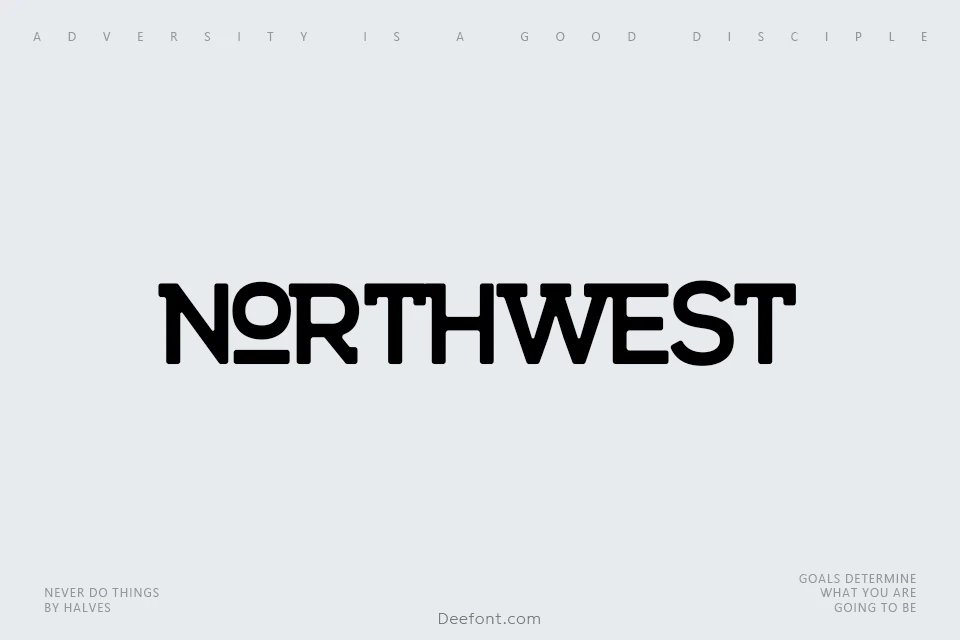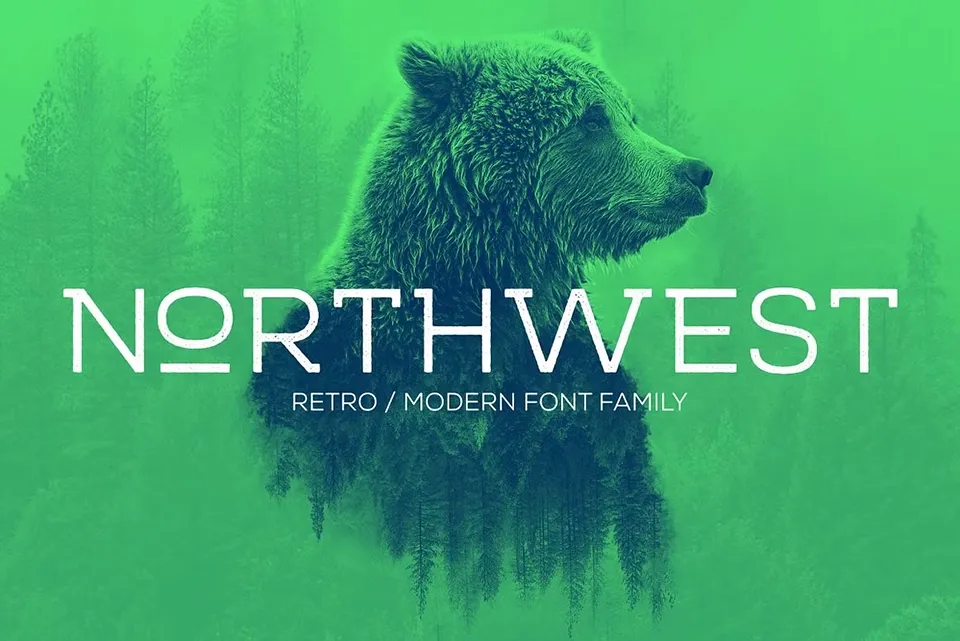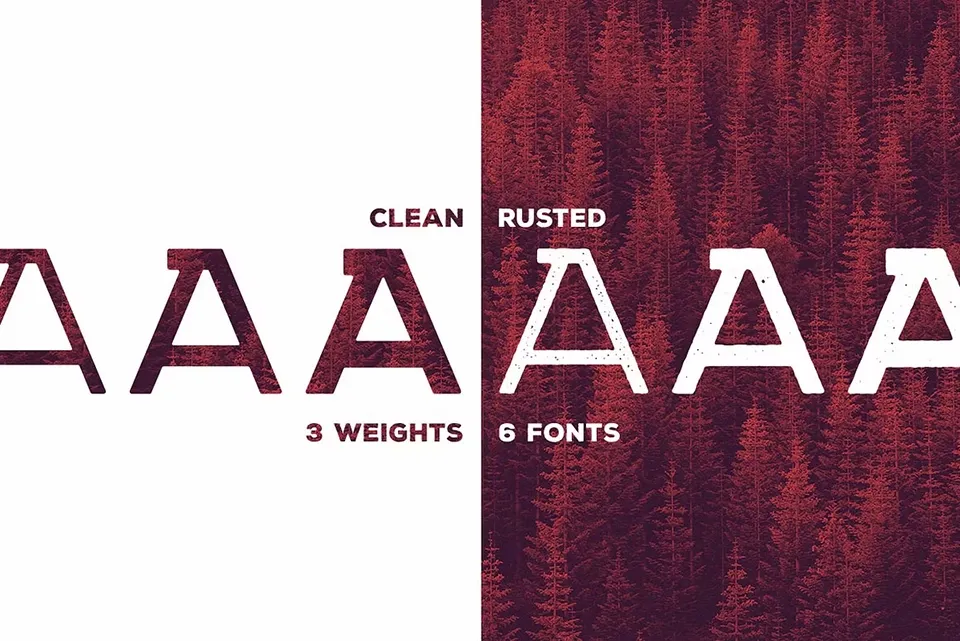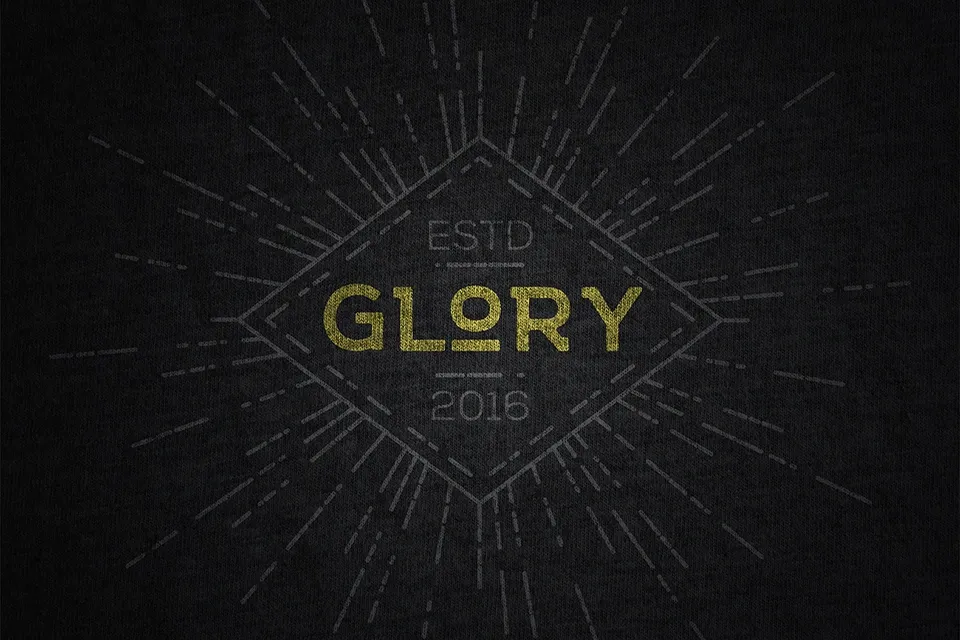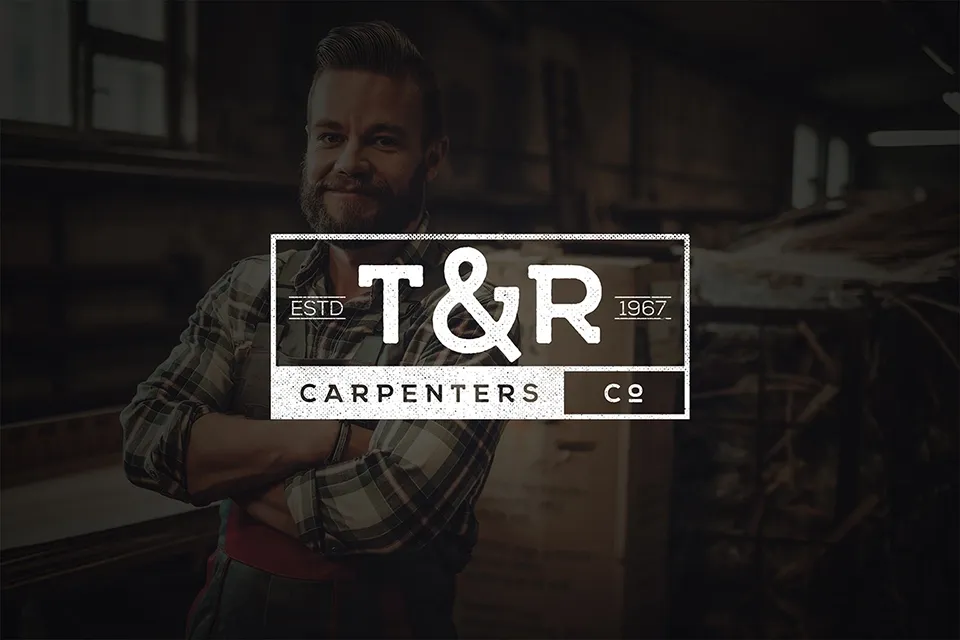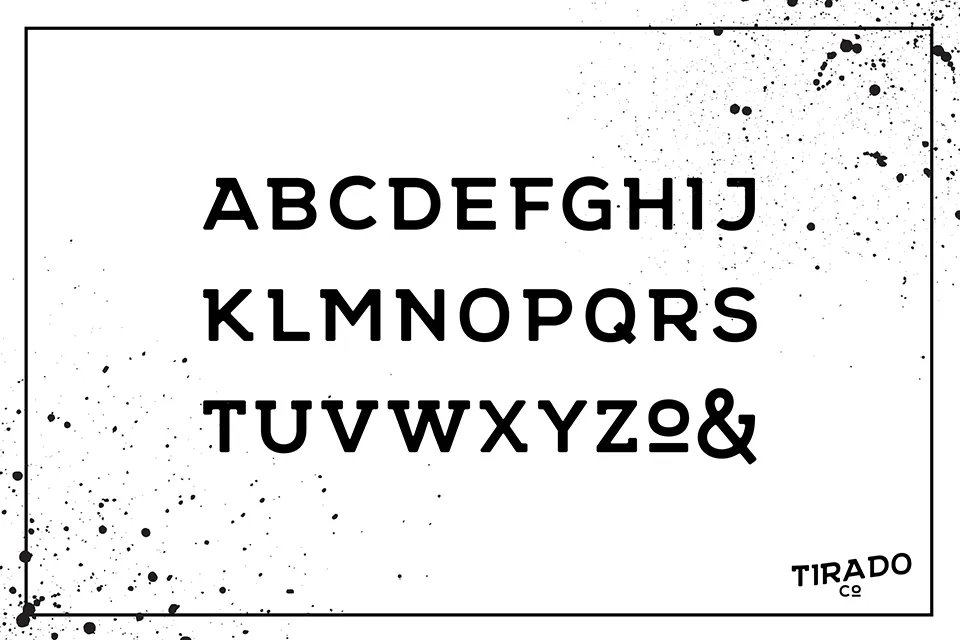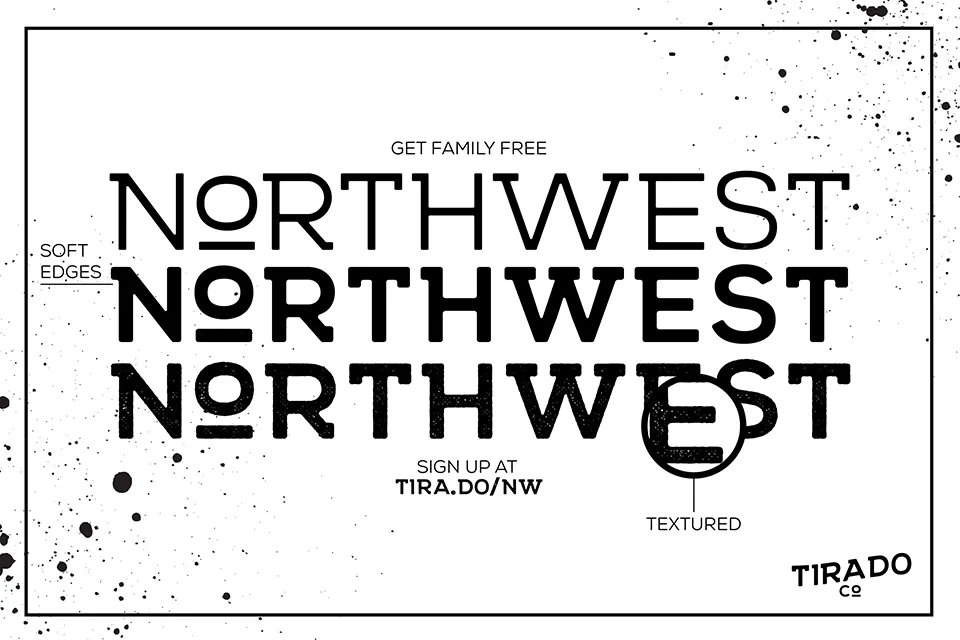
Northwest Font
Northwest Typeface is a retro-inspired display font designed to evoke a classic, adventurous spirit. Its bold, geometric letterforms make it ideal for logos, posters, t-shirt designs, and creative branding projects. The font’s unique style stands out in both vintage and modern design contexts, offering versatility and character for designers seeking a distinctive look.This font demo is free for personal and commercial use.